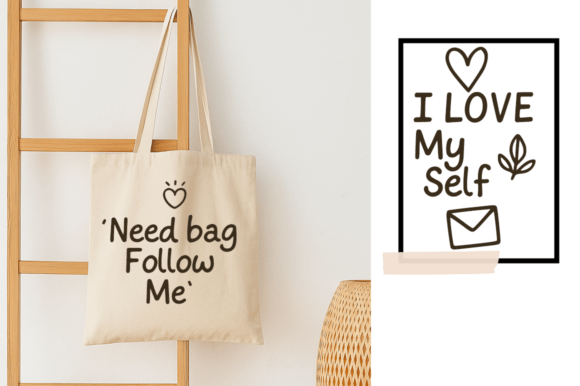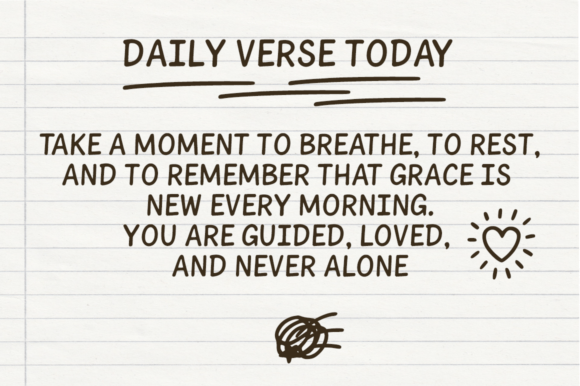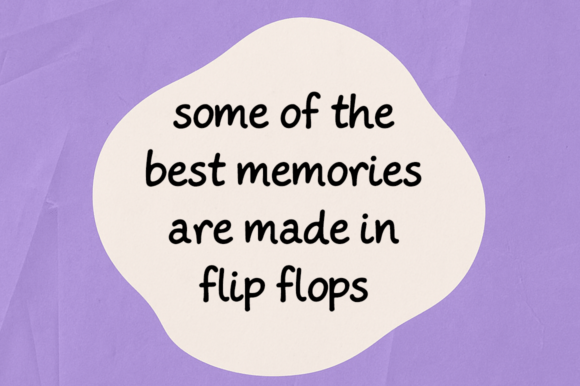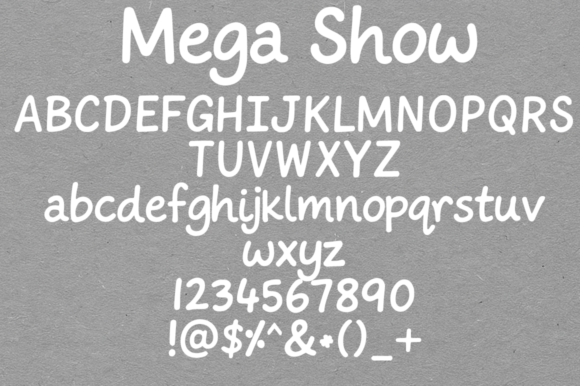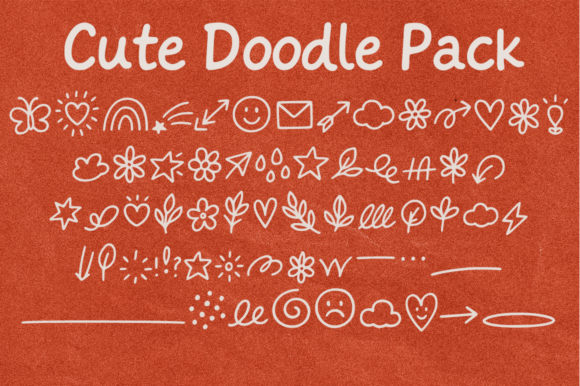
Introduction to Mega Show – a Playful Handwritten Font
Mega Show is a playful, chunky handwritten font designed to bring joy and a friendly, organic feel to all your creative projects.
This bubbly, marker-style typeface has an endearingly casual aesthetic with slightly uneven baselines and rounded terminals, giving it a truly authentic, hand-drawn look It’s the perfect choice for designs aimed at children, fun-loving adults, or anyone needing an instant boost of cheerfulness.
Key Features of Mega Show – a Playful Handwritten Font
Why Choose Mega Show – a Playful Handwritten Font?
Mega Show – a Playful Handwritten Font offers exceptional quality and versatility, making it a valuable addition to your design toolkit. Whether you’re creating for personal projects or commercial use, Mega Show – a Playful Handwritten Font delivers professional results.